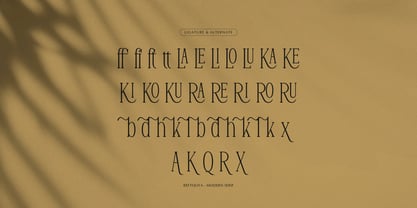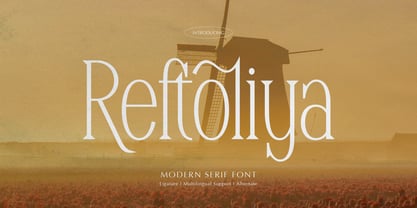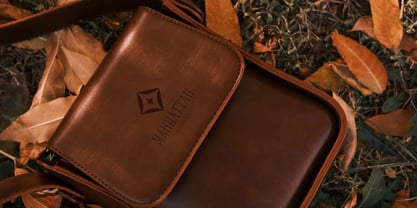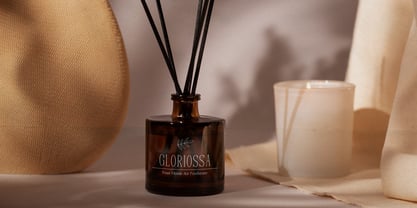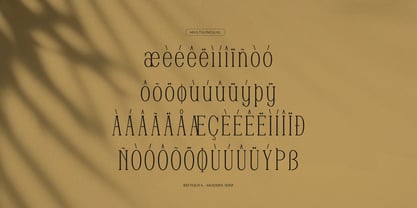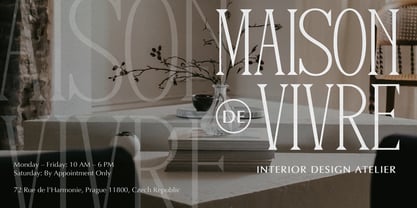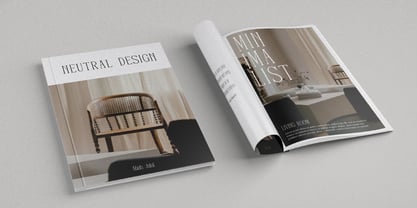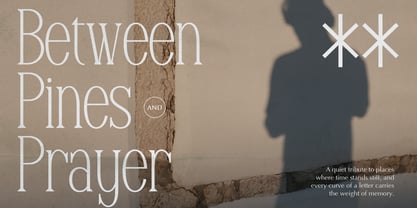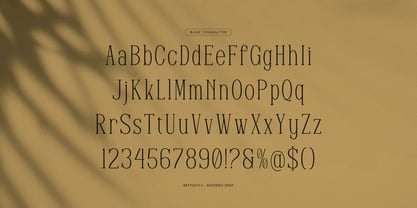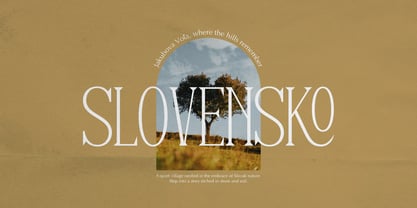
Reftoliya
by Tini Fitriani
Reftoliya | Modern Serif Font, from Gracetypestudio, suitable for any projects such as: logos, branding projects, homeware designs, product packaging, mugs, quotes, posters, shopping bags, t-shirts, book covers, name card, invitation cards, greeting cards, label, photography, watermark, special events, and all your other lovely projects that need a Cutout Handwritten taste.